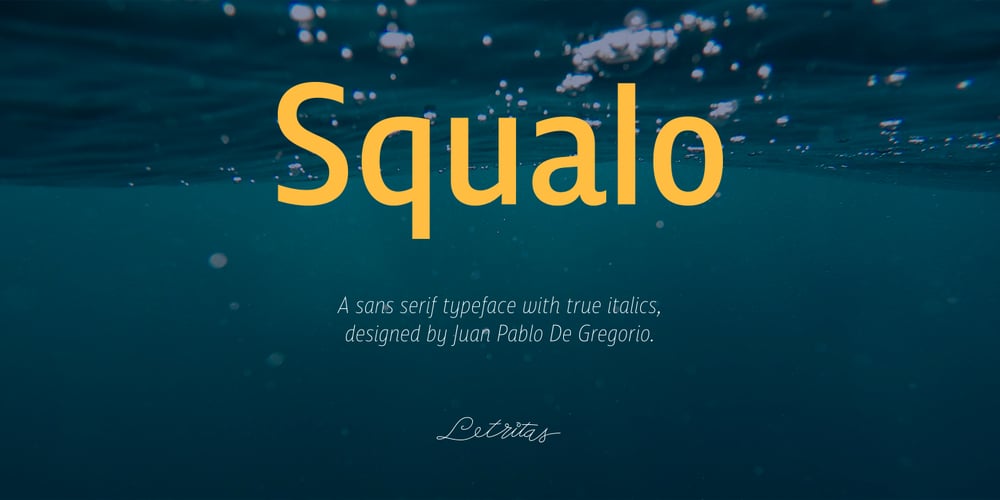
Squalo Font Family was designed by Juan Pablo De Gregorio and published by Letritas. Squalo contains 18 styles and family package options. Squalo, the genesis The idea of this project called Squalo popped into my mind while I was working with excitement on some sketches. I was chasing after a strong typographical character, something that for me has to be crystallized in form which is always legible and functional. The concept of Squalo arises from the observation of an athlete’s body: you notice that even if most are lean, they are also strong, cut and chiselled. The sport they play molds and modify their bodies. Just think, for instance, on a professional swimmer: during the competition every single muscle, tendon, tissue, cell is working to swim faster. Every single part is there to give strength and speed like in a “squalo” (shark in italian). Not as an eel, nor as a mermaid, nor as a hake. Just like a shark. If you take a quick look, you will notice that the width of the typeface is slightly more condensed than that of a standard sans serif. We designed Squalo this way specifically to assist and strengthen your concepts through stylized typography. We designed the joins and terminals (tip ends) of the characters A, V, W, Z, v, w, z, to create a feeling of “tension”, reinforcing the concept of shark, danger, caution, as well explicit, intentional movement. Pure strength. We wanted to recall the exact moment of the start of the 100 meters race: when the sprinter initially spreads all of his powerful energy. The italic version, starting with the former two typographical concepts of width and tension, emphasizes them. First of all, we compressed the characters 10 percent more, and slanted it 10 degrees to the right. With this movement I intended to convey the gorgeous feeling of tension in power and rapidity. The typeface has 9 weights, from “hair” to “black”, and two versions, “regular” and “italic”. All 18 fonts include small caps, unicase, tabular and oldstyle numbers, numerators and denominators, and much more. Squalo is an ideal typeface that I recommend for use in marketing campaigns, design of packaging, magazines, branding for tv programs, films, book texts, editorial, publications, logos, corporate projects, web texts, and graphic design in motion. Squalo supports the following languages: Abenaki, Afaan Oromo, Afar, Afrikaans, Albanian, Alsatian, Amis, Anuta, Aragonese, Aranese, Aromanian, Arrernte, Arvanitic (Latin), Asturian, Atayal, Aymara, Bashkir (Latin), Basque, Bemba, Bikol, Bislama, Bosnian, Breton, Cape Verdean Creole, Catalan, Cebuano, Chamorro, Chavacano, Chichewa, Chickasaw, Cimbrian, Cofán, Corsican Creek,Crimean Tatar (Latin),Croatian, Czech, Dawan, Delaware, Dholuo, Drehu, Dutch, English, Estonian, Faroese, Fijian Filipino, Finnish, Folkspraak, French, Frisian, Friulian, Gagauz (Latin), Galician, Ganda, Genoese, German, Gikuyu, Gooniyandi, Greenlandic (Kalaallisut)Guadeloupean, Creole, Gwich’in, Haitian, Creole, Hän, Hawaiian, Hiligaynon, Hopi, Hotcąk (Latin), Hungarian, Icelandic, Ido, IgboI, locano, Indonesian, Interglossa, Interlingua, Irish, Istro-Romanian, Italian, Jamaican, Javanese (Latin), Jèrriais, Kala Lagaw Ya, Kapampangan (Latin), Kaqchikel, Karakalpak (Latin), Karelian (Latin), Kashubian, Kikongo, Kinyarwanda, Kiribati, Kirundi, Klingon, Ladin, Latin, Latino sine Flexione, Latvian, Lithuanian, Lojban, Lombard, Low Saxon, Luxembourgish, Maasai, Makhuwa, Malay, Maltese, Manx, Māori, Marquesan, Megleno-Romanian, Meriam Mir, Mirandese, Mohawk, Moldovan, Montagnais, Montenegrin, Murrinh-Patha, Nagamese Creole, Ndebele, Neapolitan, Ngiyambaa, Niuean, Noongar, Norwegian, Novial, Occidental, Occitan, Old Icelandic, Old Norse, Oshiwambo, Ossetian (Latin), Palauan, Papiamento, Piedmontese, Polish, Portuguese, Potawatomi, Q’eqchi’, Quechua, Rarotongan, Romanian, Romansh, Rotokas, Sami (Inari Sami), Sami (Lule Sami), Sami (Northern Sami), Sami (Southern Sami), Samoan, Sango, Saramaccan, Sardinian, Scottish Gaelic, Serbian (Latin), Seri, Seychellois Creole, Shawnee, Shona, Sicilian, Silesian, Slovak, Slovenian, Slovio (Latin), Somali, Sorbian (Lower Sorbian), Sorbian (Upper Sorbian), Sotho (Northern), Sotho (Southern), Spanish, Sranan, Sundanese (Latin), Swahili, Swazi, Swedish, Tagalog, Tahitian, Tetum, Tok Pisin, Tokelauan, Tongan, Tshiluba, Tsonga, Tswana, Tumbuka, Turkish, Turkmen (Latin), Tuvaluan, Tzotzil, Uzbek (Latin), Venetian, Vepsian, Volapük, Võro, Wallisian, Walloon, Waray-Waray, Warlpiri, Wayuu, Welsh, Wik-Mungkan, Wiradjuri, Wolof, Xavante, Xhosa, Yapese, Yindjibarndi, Zapotec, Zulu, Zuni